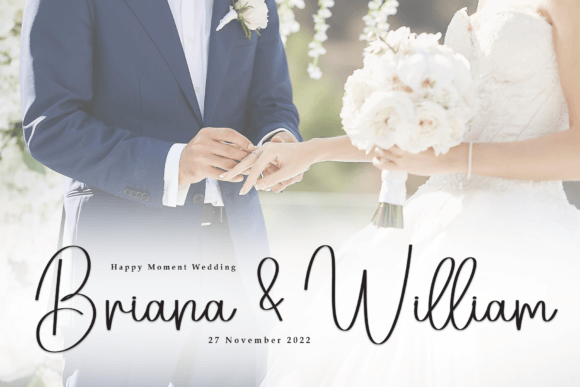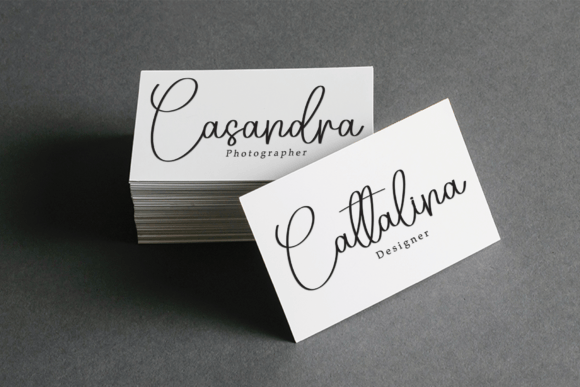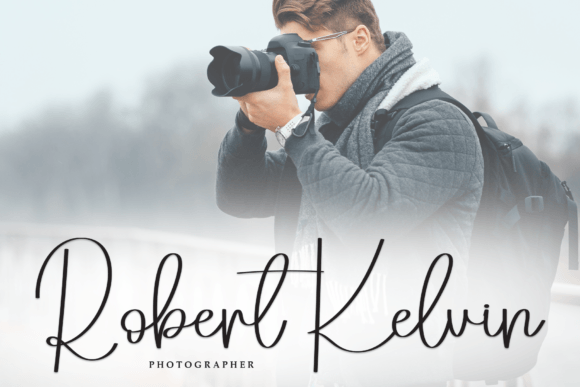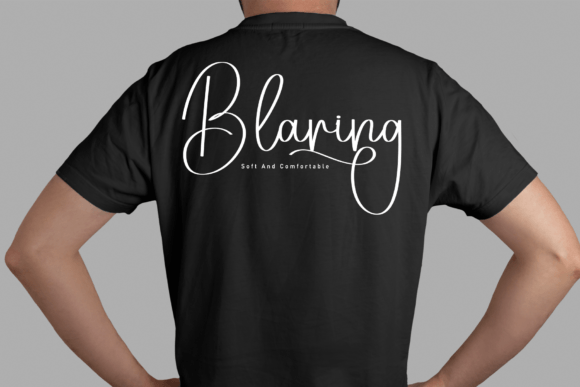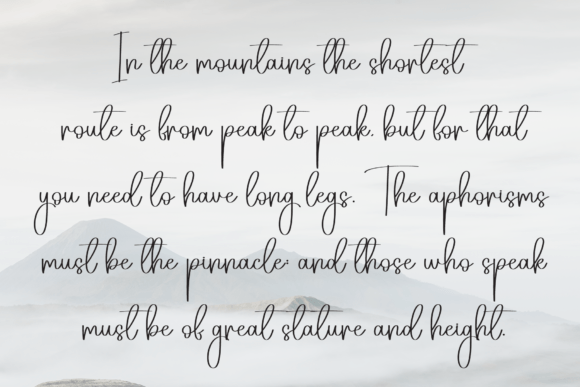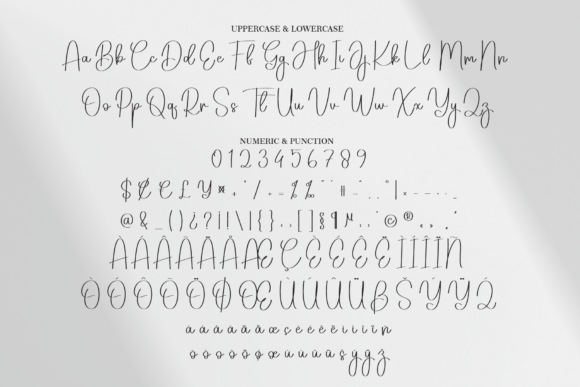
The Art of Elegant Design: Unveiling the Kailay Font
As a designer, there’s nothing quite like the rush of inspiration that hits when a new project comes along. Maybe it’s a stunning sunset that sparks an idea for a photography campaign, or a vintage typewriter that inspires a unique font. For me, it was a beautiful handwritten note from a loved one that set the wheels turning for a new project. And that’s exactly how I discovered the Kailay Font – a delicate and elegant script font that perfectly captures the essence of handwritten charm.
With its versatility and sophistication, the Kailay Font is a valuable tool for designers looking to add a touch of class to their projects. Whether it’s a wedding invitation, social media post, or product packaging, this font is sure to make a lasting impression. Its beauty lies in its simplicity, making it the perfect choice for designers who want to convey a sense of elegance and refinement without overpowering their message.
Kailay Font Key Features
- Font Family: Kailay Font is a unique, hand-drawn font designed for various purposes, including logos, branding, and body text.
- Character Count: Kailay Font contains a wide range of characters, including uppercase and lowercase letters, numbers, and punctuation marks.
- Unique Characteristics: Kailay Font features a distinctive, cursive design with flowing lines and organic shapes, making it suitable for creative and artistic applications.
Kailay Font Review
As a designer, I had the opportunity to work with the Kailay font, and I must say it’s a unique and interesting typeface. ✨ One of the things that stands out about Kailay is its bold and playful feel. It’s perfect for creating attention-grabbing headlines and titles that add a touch of whimsy to your design.
Another advantage of Kailay is its versatility. It comes in a range of weights and styles, making it suitable for a variety of design projects, from logos and branding to signage and wayfinding systems.
- ✨ Unique and playful feel
- ✨ Versatile with a range of weights and styles
- ✨ Perfect for creating attention-grabbing headlines and titles
- ⚠️ Limited legibility at small font sizes
- ⚠️ May not be suitable for body text due to its bold and playful feel
Overall, I would say that Kailay is a great font for designers who want to add a touch of personality to their work. However, it’s not the best choice for projects that require a lot of text or need a more subtle design approach. With careful use and consideration of its limitations, Kailay can be a valuable addition to any designer’s toolkit.
The Kailay Font is ideal for creating elegant and sophisticated designs, such as wedding invitations, branding materials, and luxury product packaging. It is also suitable for use in digital media, such as website headers, social media graphics, and mobile apps.
Is the Kailay Font suitable for large-scale projects?
Yes, the Kailay Font is designed to handle large-scale projects, including signage, billboards, and digital displays. It is optimized for high-resolution output and can be scaled up to 1000% or more without significant loss of quality.
Can I customize the Kailay Font for my specific project needs?
Yes, the Kailay Font is fully customizable. You can adjust the font’s weight, width, and other parameters using OpenType features and font editing software, such as FontLab or Glyphs.